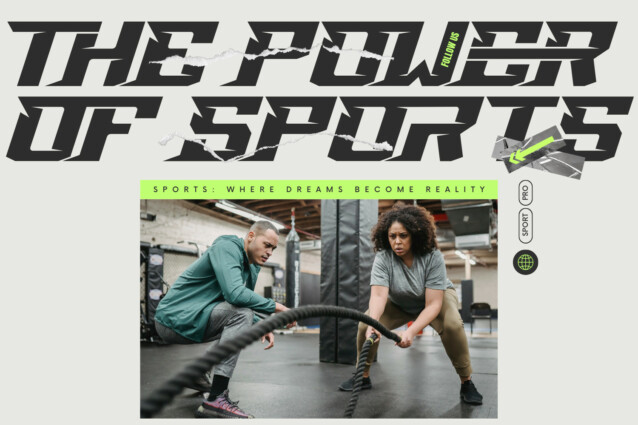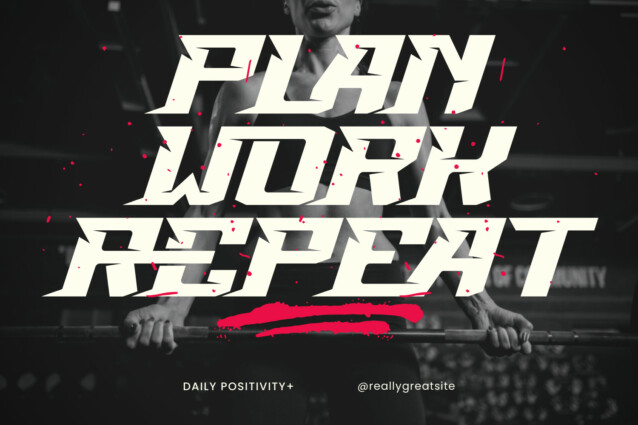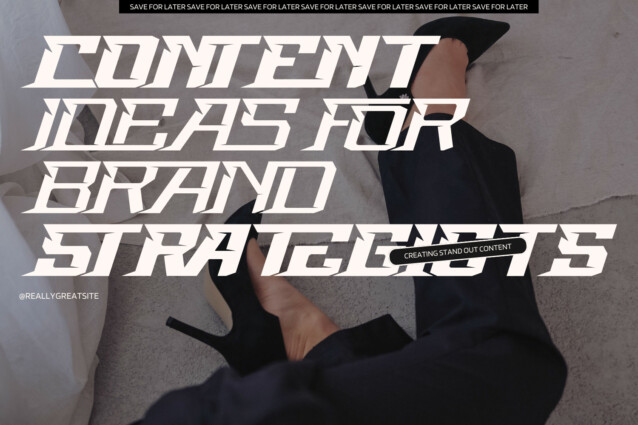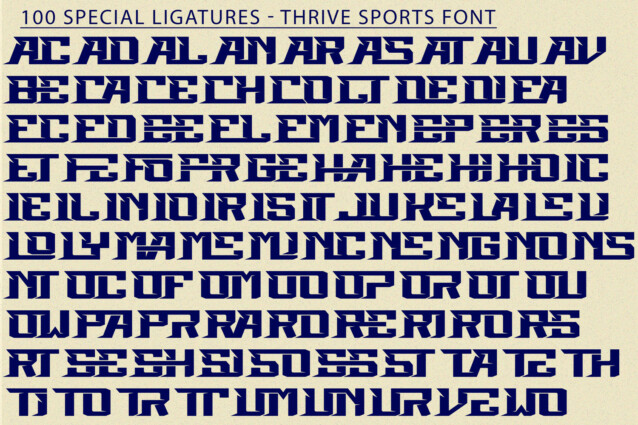
Thrive Sports Font is a cool sports font with a fresh style, modern cutouts and dynamic tilt for a quick feel. This font an awesome sports font with wide italic fonts, modern cutouts, and dynamic slant. Ideal for fast car racing sports titles, running matches, cycling, automotive game logos and monograms or other modern dynamic text.
Thrive Sports was built with OpenType features and includes 100 ligatures, alternate, numbers, punctuation, and it also supports other languages.
AC AD AL AN AR AS AT AU AV BE CA CE CH CO CT DE DI EA EC ED EE EL EM EN EP ER ES ET FE FO FR GE HA HE HI HO IE IC IL IN IO IR IS IT JU KE LA LE LI LL LO LY MA ME MI NC ND NE NG NO NT NS OC OF OM ON OO OP OR OT OU OW PA PR RA RD RE RI RO RS RT SE SH SI SO SS ST TA TE TH TI TO TR TT UM UN UR VE WI WO